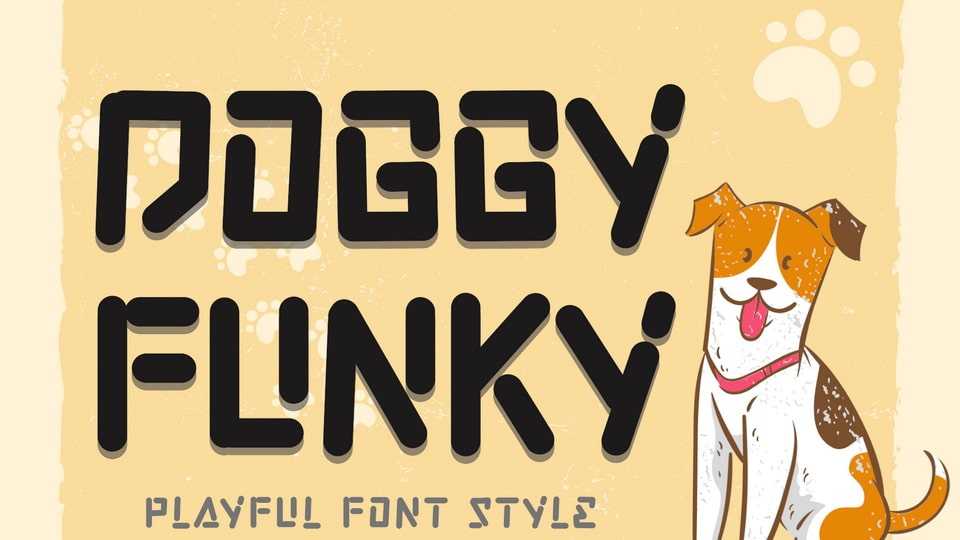
Download Doggy Funky font, a cute and unique display typeface. Very suitable for use for spring, summer, doggy font, animal font, cartoon titles, comic titles, posters, prints, stickers, banners, branding and others.